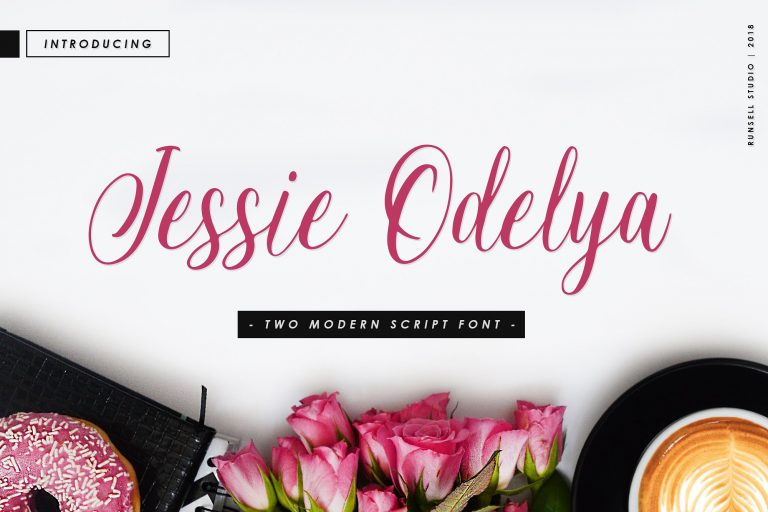
Jessie Odelya Script Font
A modern font script will make your customers happy in your product. Jessie Odelya – is an two modern script font created by Runsell Studio. Jessie Odelya a perfectly elegant and beauty font pair, that include two style modern script fonts. This fonts collection are stylish, fresh and ideal for adding the special look to your designs. This font matches applies in some designs such as the logotype, brand, magazine, website or blog headlines, packaging, branding, qoutes, invitation cards, greeting cards, business cards, and wedding more.